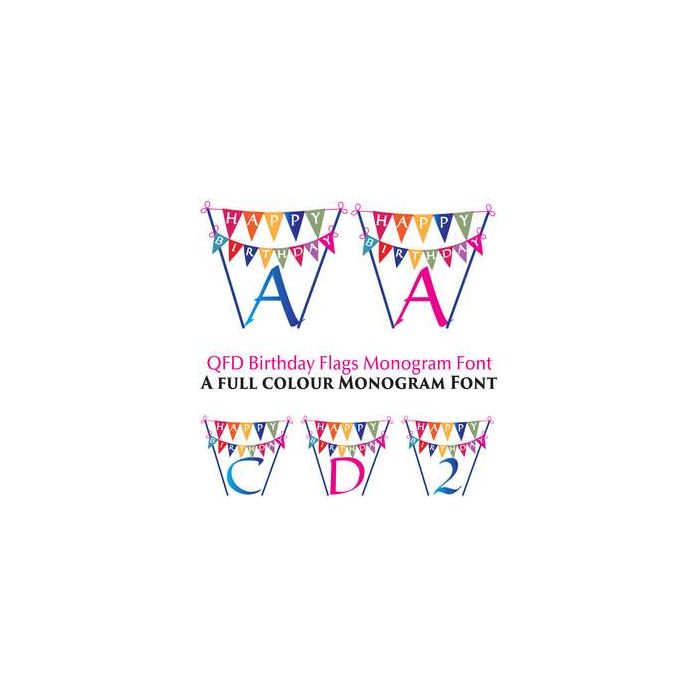
This fun font is two card sets in one font! Upper case letters have the blue monograms and the lower case letters have the pink monograms. To access the pink numbers, press Shift and choose the number.